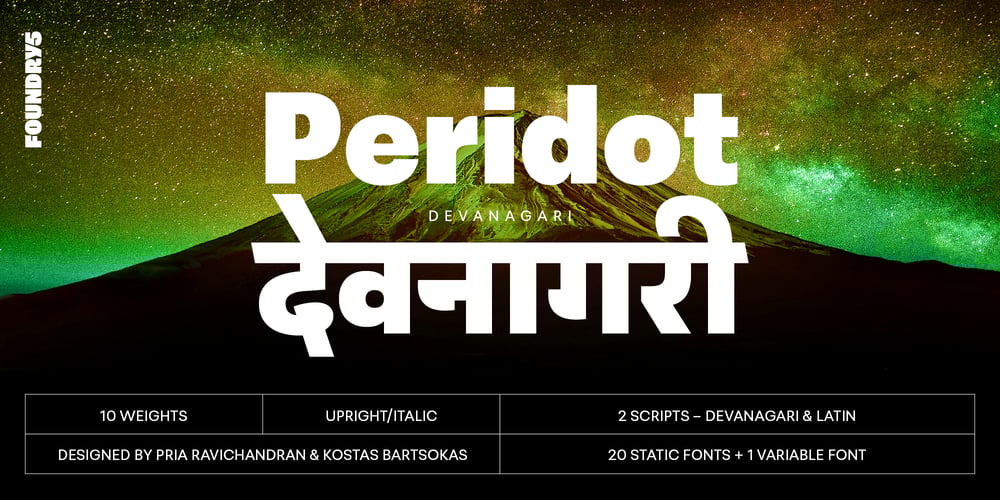
Peridot Devanagari Font Family was designed by Kostas Bartsokas, Pria Ravichandran and published by Foundry5. Peridot Devanagari contains 21 styles and family package options. Mesmerised by the sparkling greenish-yellow mineral called Olivine hidden within the black basalt of Lanzarote’s lava fields, we named the gem of our library after this natural beauty.Peridot is not just another typeface – it’s a multifaceted sans serif type system crafted with passion and precision by Foundry5. Painstakingly developed through long hours and a keen focus on every minute detail, this typeface boasts a high-quality 10 weight family with matching italics in 6 widths, and the highly versatile variable format. Brimming with character, Peridot invites you to experiment with its various stylistic variants, allowing you to tailor the typographic tone to fit your creative vision perfectly. The diverse range of widths and styles in Peridot offers a dynamic typographic toolbox, ready to inspire and captivate even the most innovative designers.Peridot Devanagari supports Devanagari and Latin and covers over 330 languages. It includes all required localised variants, tabular numerals and currencies, fractions, clever discretionary ligatures and many more features. Peridot performs in varied environments – from branding, display, corporate use, editorial, advertising, poster, web, screen usage etc. Think of any other use case as well, and Peridot will perform.Peridot Devanagari comprises 20 static fonts, family package, and variable support. It is the gem you ought to have in your collection.